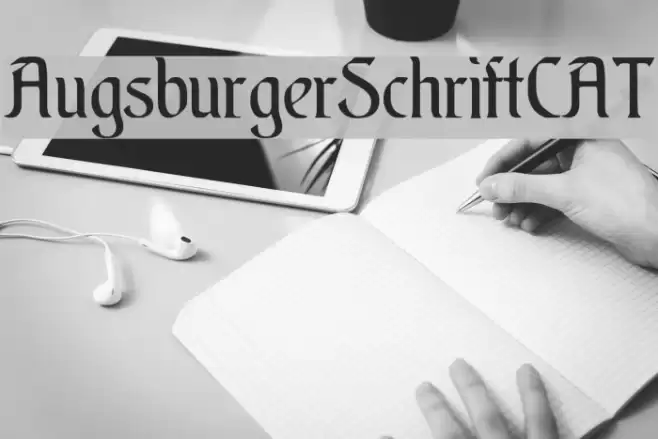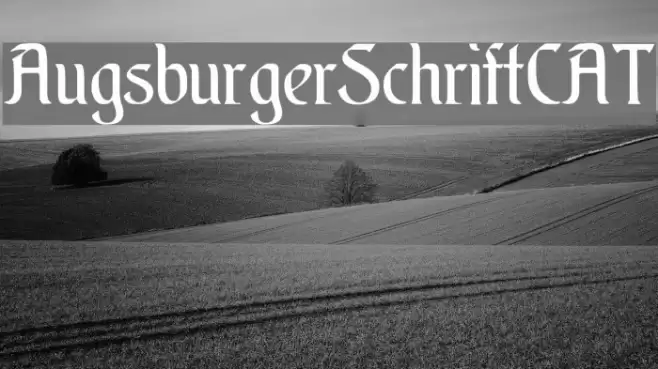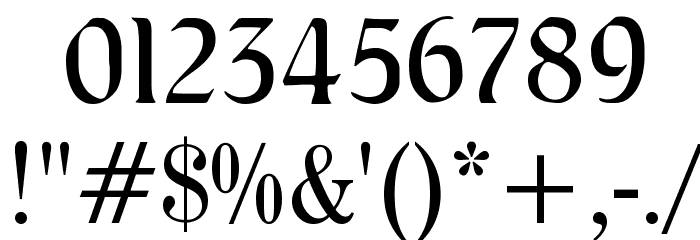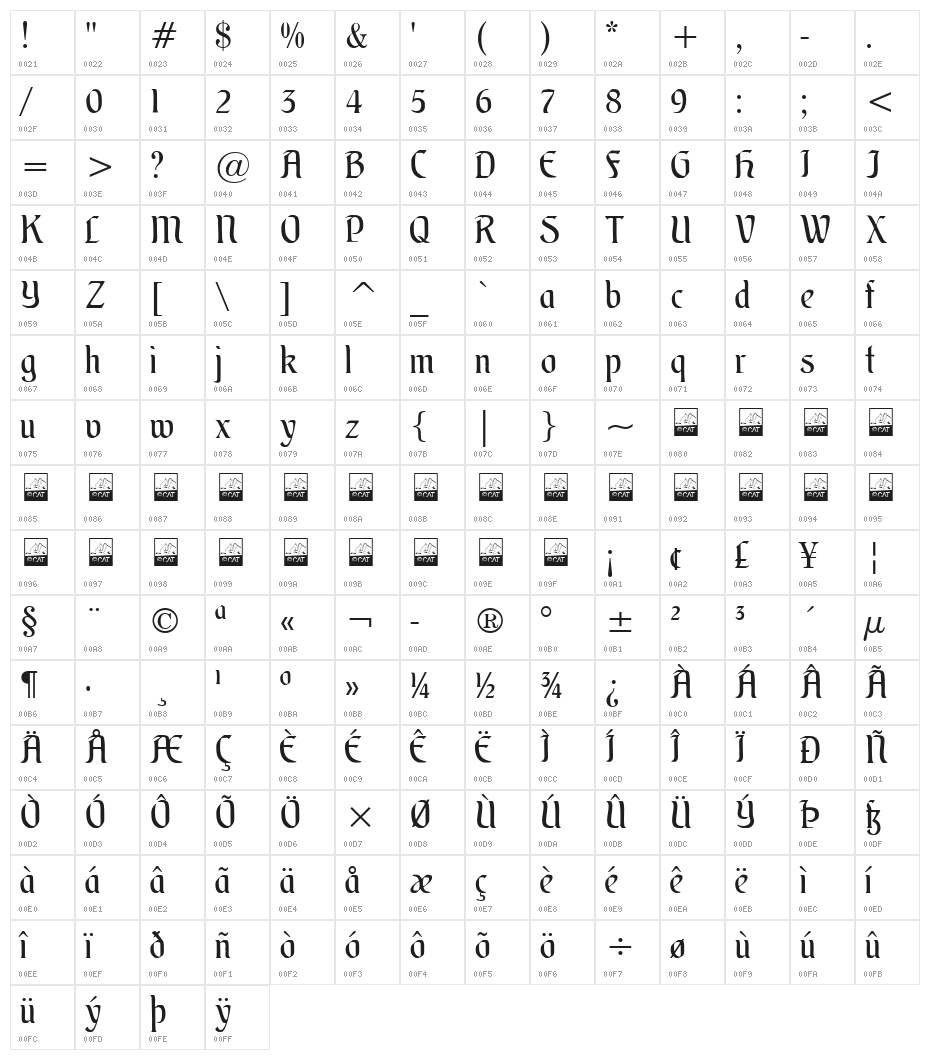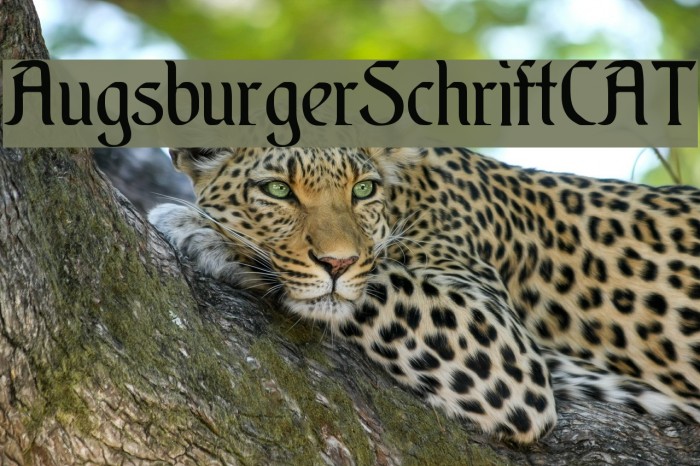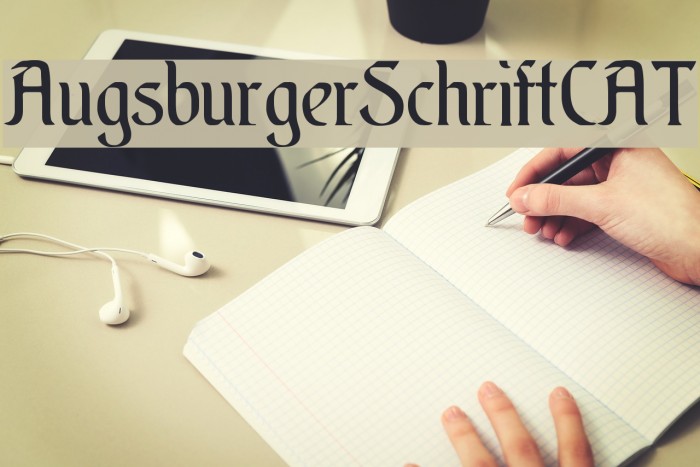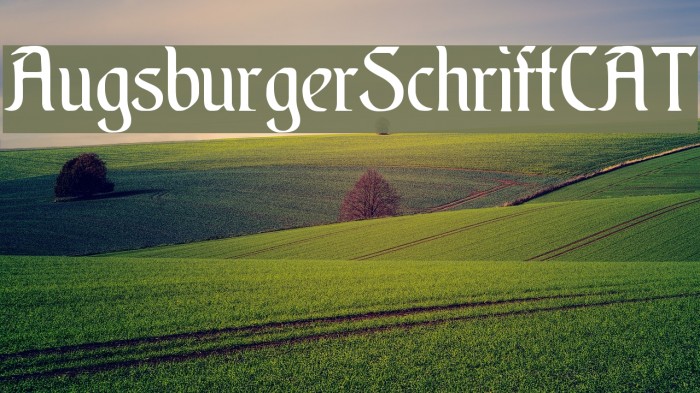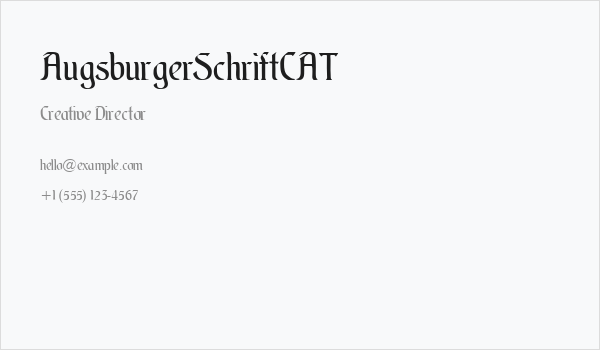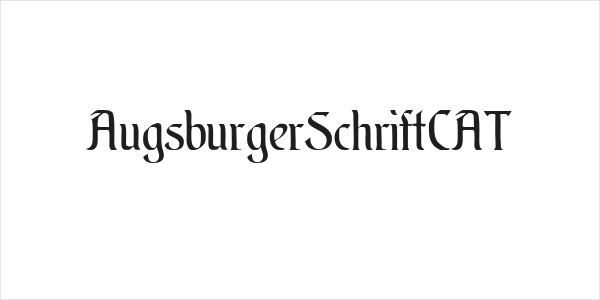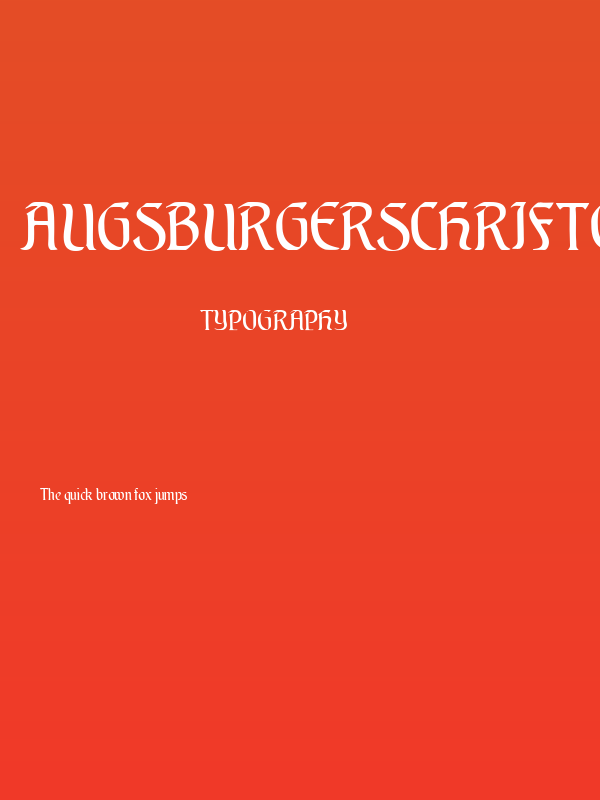
AugsburgerSchriftCAT Font
AugsburgerSchriftCAT Description
This font is a striking example of Blackletter style, characterized by its intricate and angular letterforms. The uppercase letters exhibit a strong vertical emphasis with sharp, pointed serifs and decorative flourishes that give it a medieval, gothic appearance. The lowercase letters maintain this aesthetic with slightly more rounded forms, yet still retain the distinct angularity and ornate details. The numerals are consistent with the overall style, featuring a bold and dramatic presence. Special characters are equally ornate, fitting seamlessly into the font's cohesive design. This font's historical and decorative nature makes it ideal for projects requiring a touch of classic elegance and tradition.
A decorative Blackletter font with intricate, angular letterforms and a gothic style from Uncategorized fonts.
- Proposed Projects: Ideal for historical documents, wedding invitations, certificates, and branding that requires a classic, elegant touch.
- Overall Style: Classic
- Use Case: Logos, Headlines, Decorative text